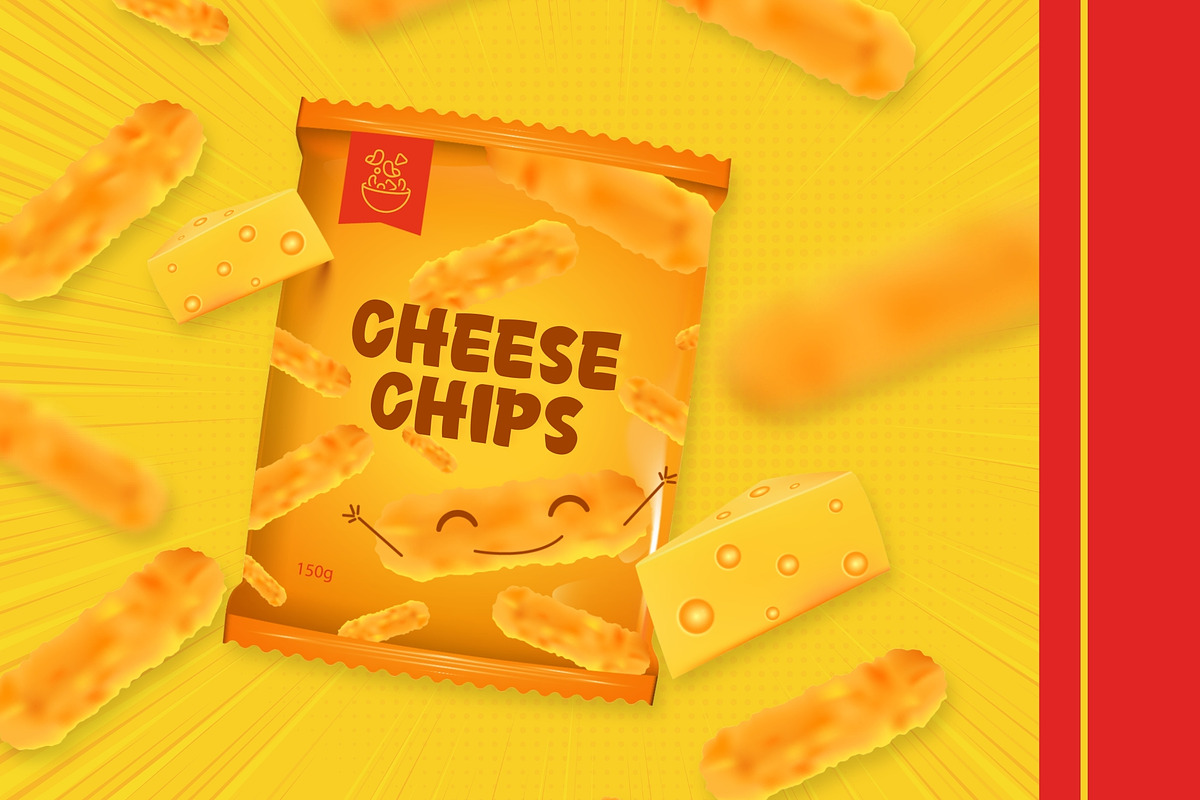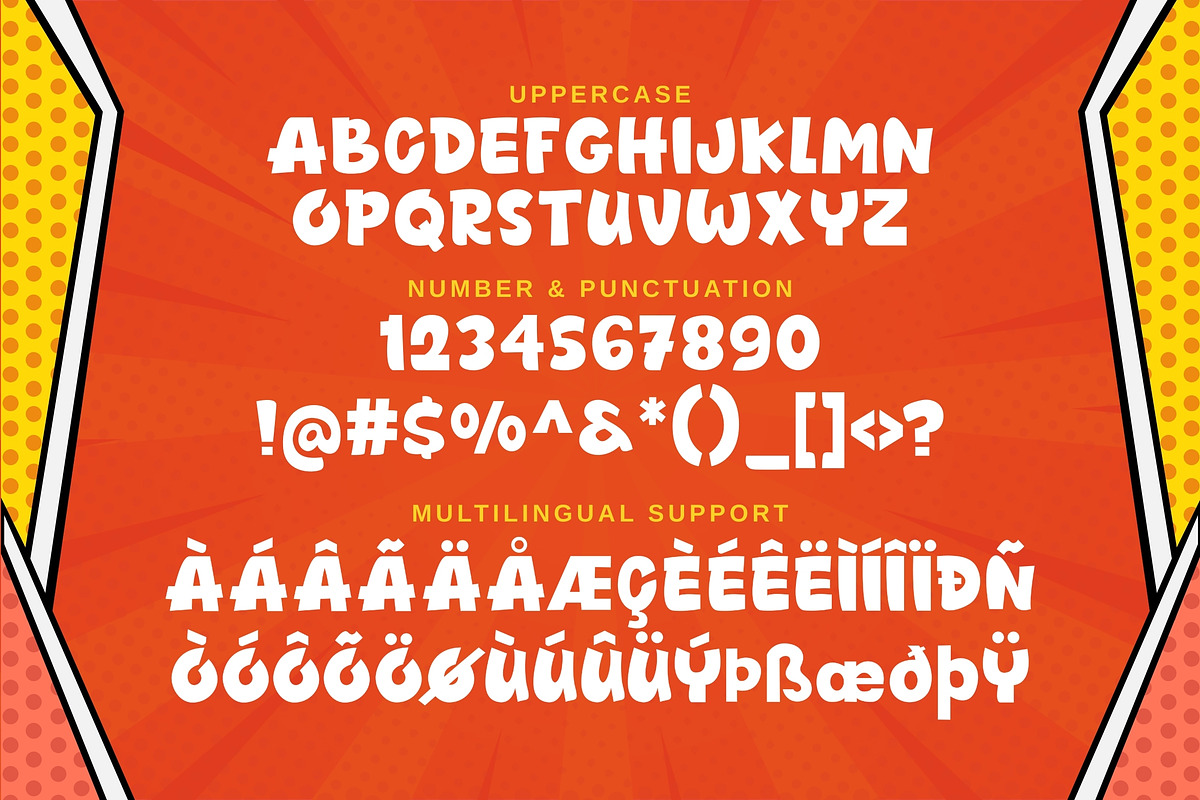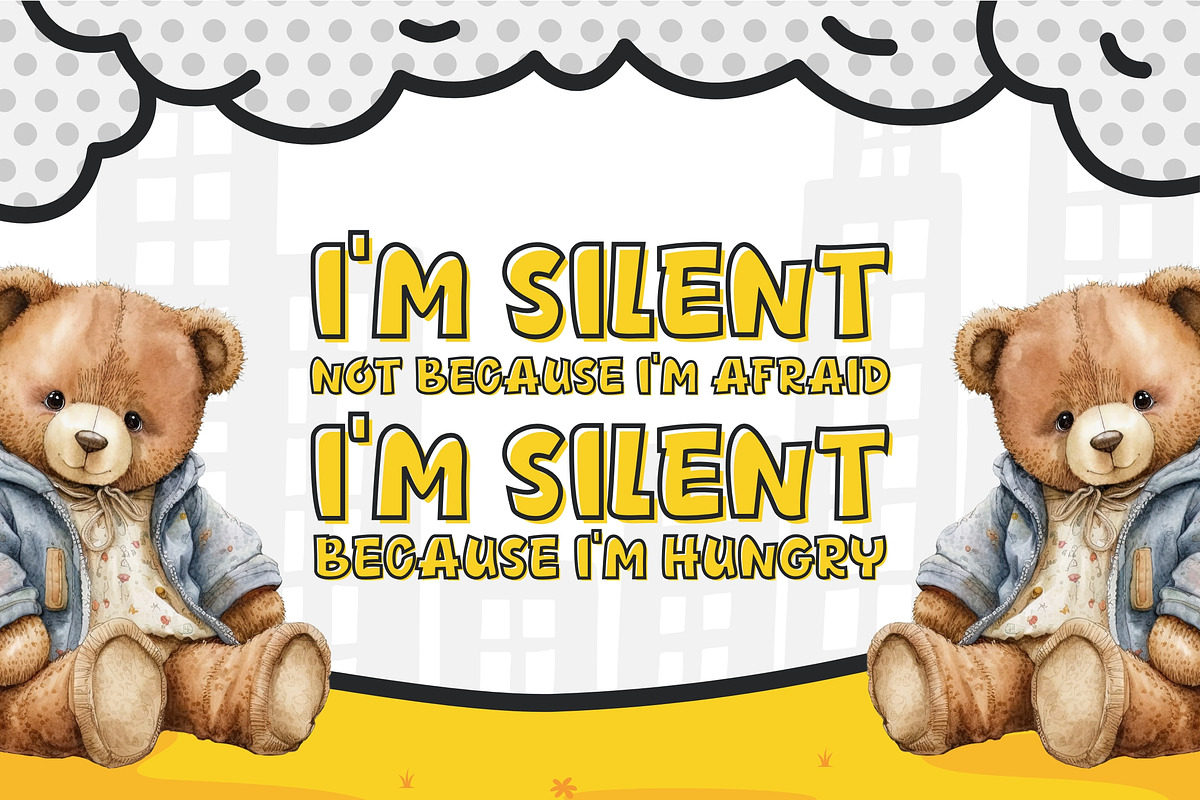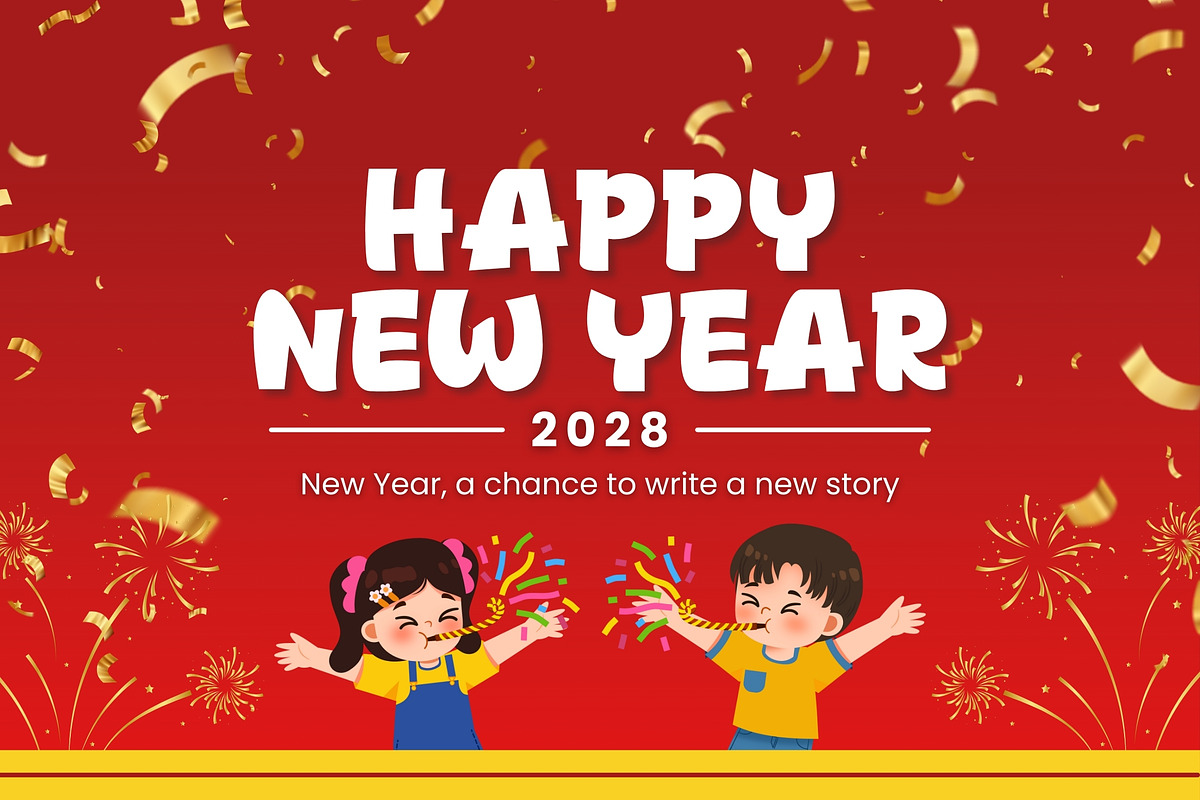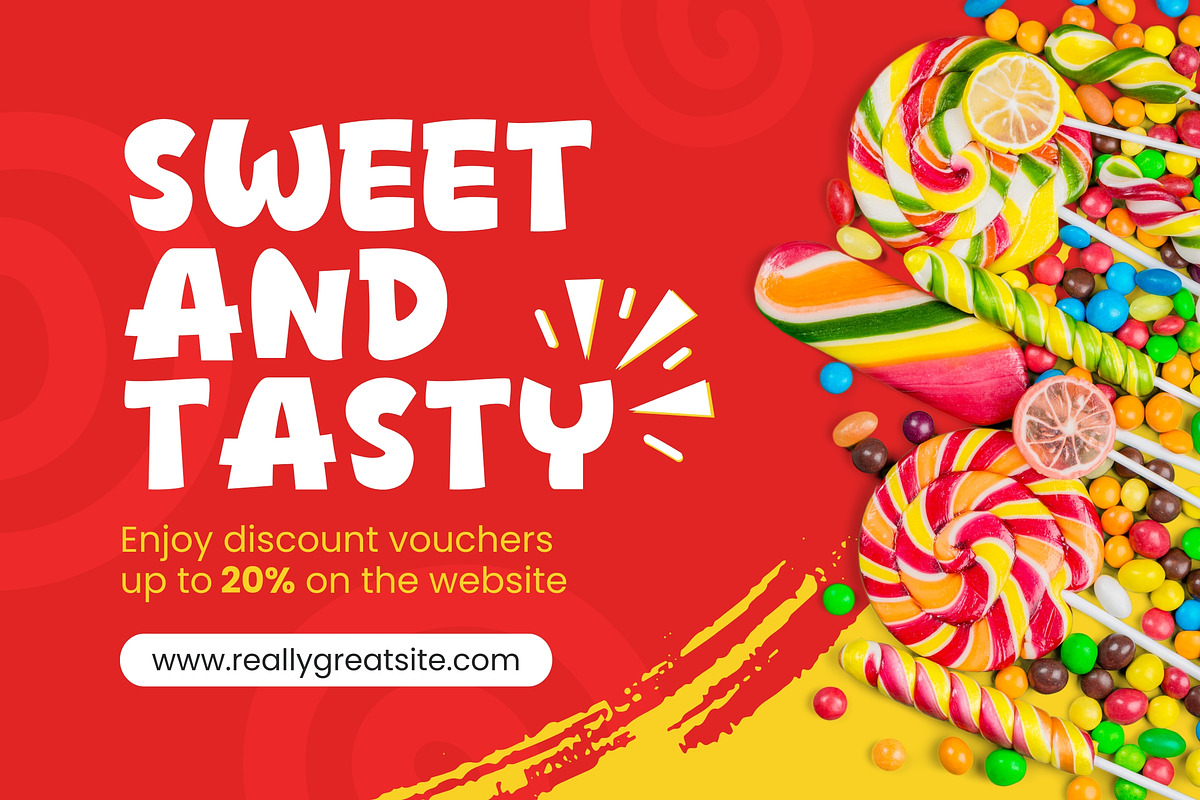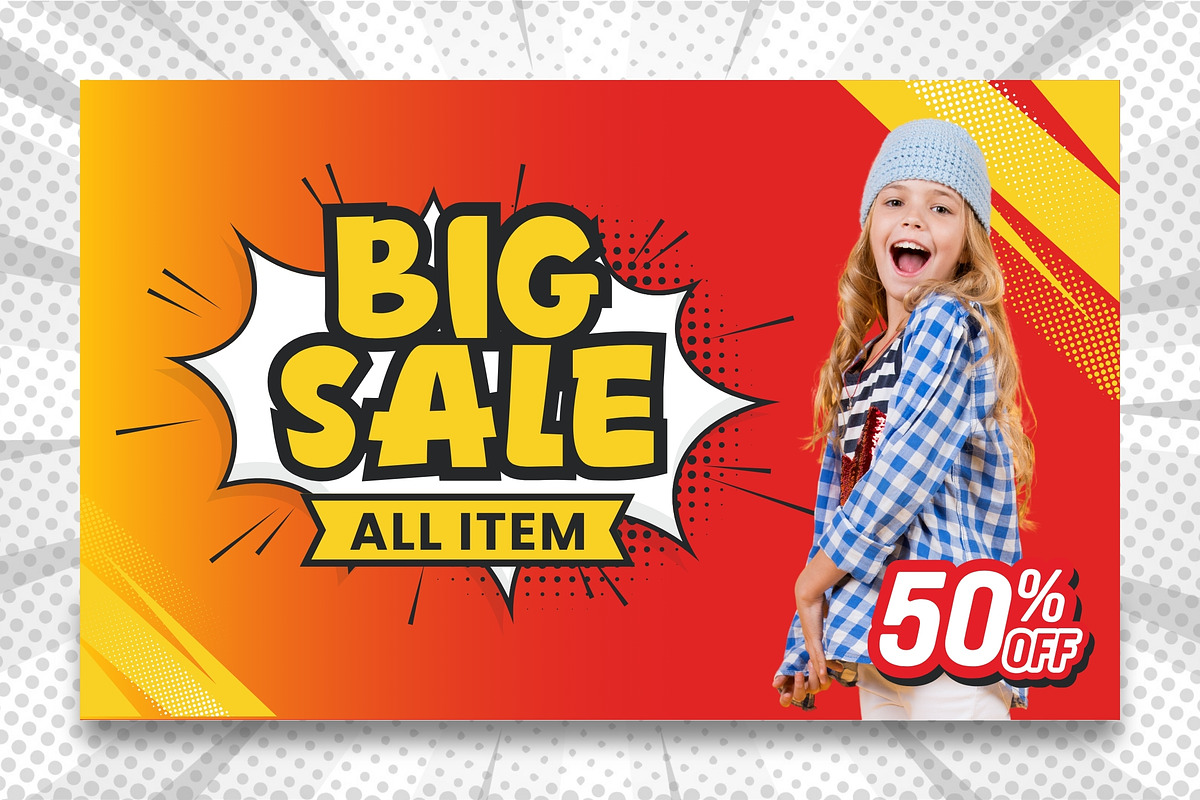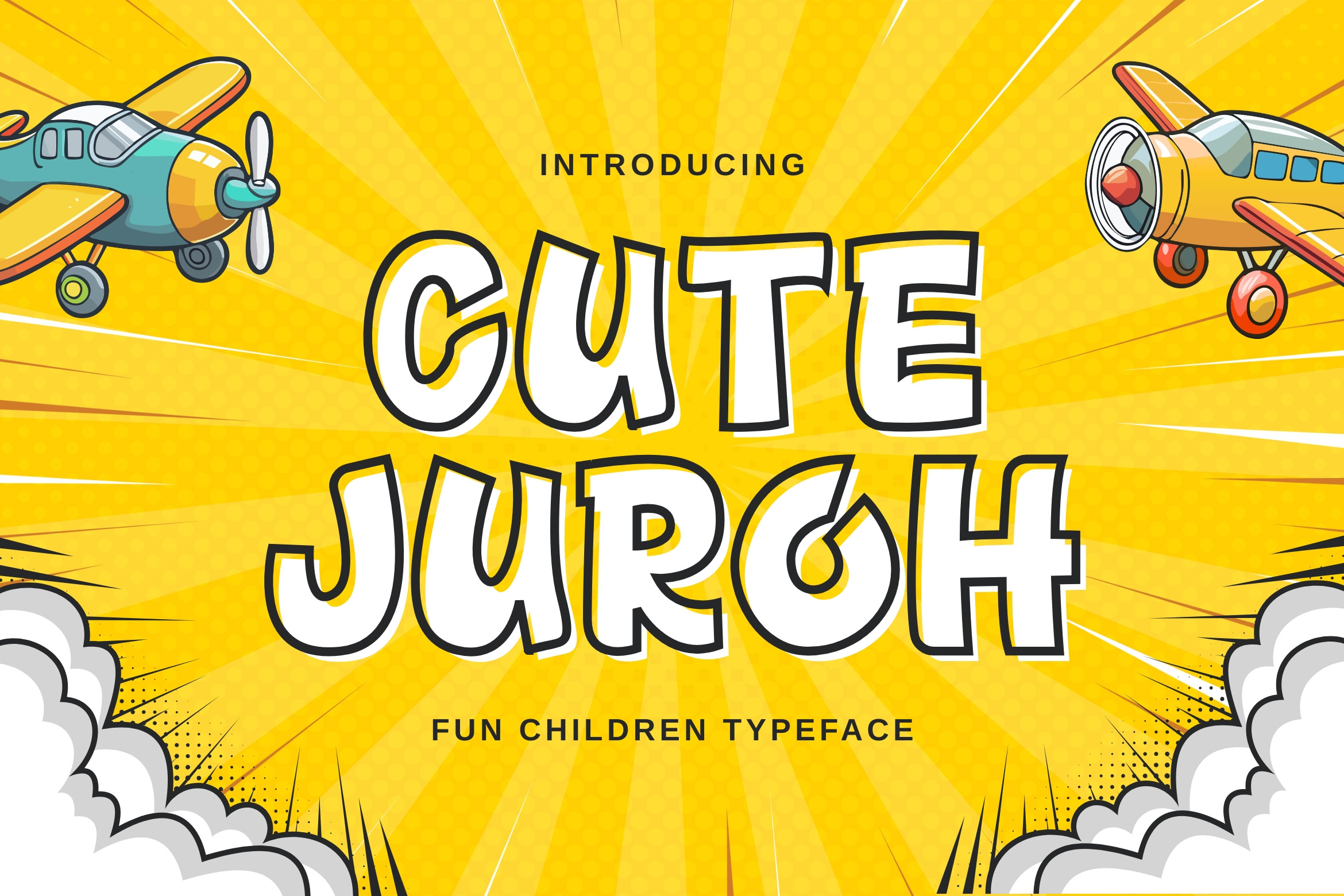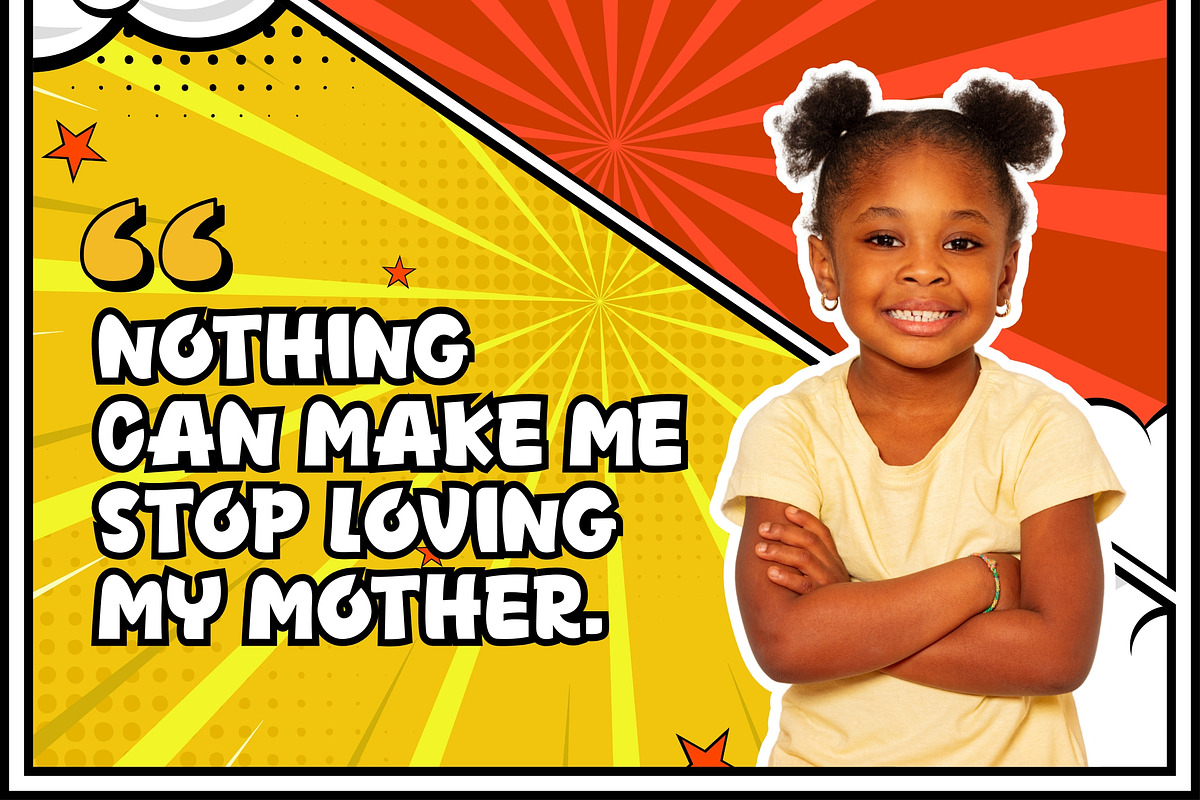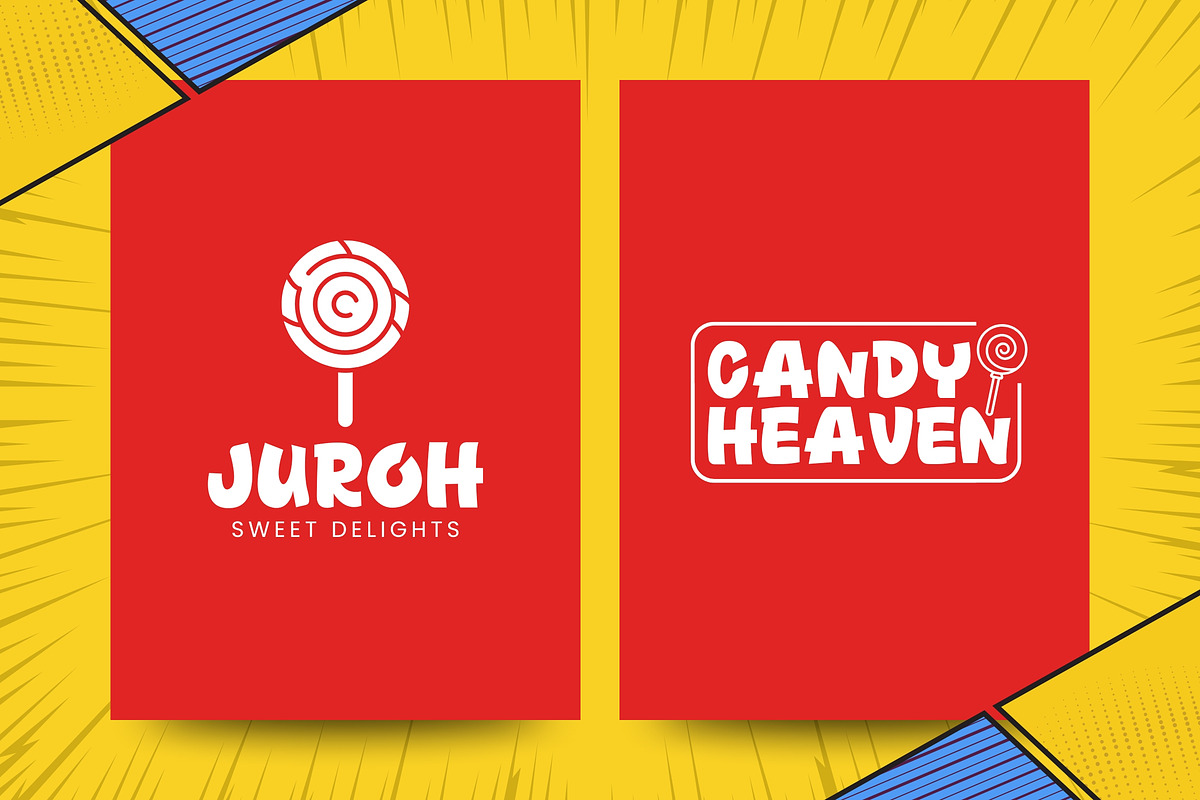
Cute Juroh – Bold Comic Font
Cute Juroh is a bold and expressive comic-style display font designed to deliver a fun, energetic, and playful impact. With its chunky shapes, dynamic curves, and strong personality, this font instantly grabs attention and brings designs to life.
Perfect for kids-focused projects that need to feel loud, cheerful, and full of character, Cute Juroh is ideal for eye-catching titles and creative visuals.
- Comic-style designs and kids illustrations
- Children’s posters, covers, and headlines
- Fun branding, packaging, and stickers
- YouTube thumbnails and kids content
- Playful logos and expressive typography
- Uppercase letters
- Bold and playful comic display style
- Multilingual character support
- High visual impact and easy readability
- Suitable for print and digital use
Why Choose Cute Juroh? Cute Juroh is made for designs that want to stand out and feel alive. Its strong and expressive letterforms make it perfect for creators who want to communicate excitement, fun, and creativity—especially in children’s entertainment and playful branding.